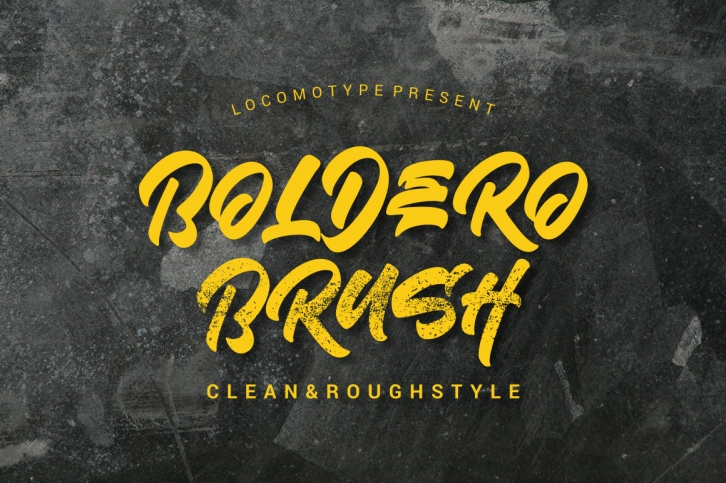
Boldero Brush is a great font that was designed by Locomotype Studio. Imagine the amount of combinations you can create using this font! The archive is 2.21 MB and it was released on July 3, 2016. Boldero Brush looks beautiful on wedding invitations, greeting cards, logos, posters, labels, t-shirt designs, logos, business cards and is perfect for use in ink or watercolor works, fashion, magazines, packaging and food menus, children's books and more!